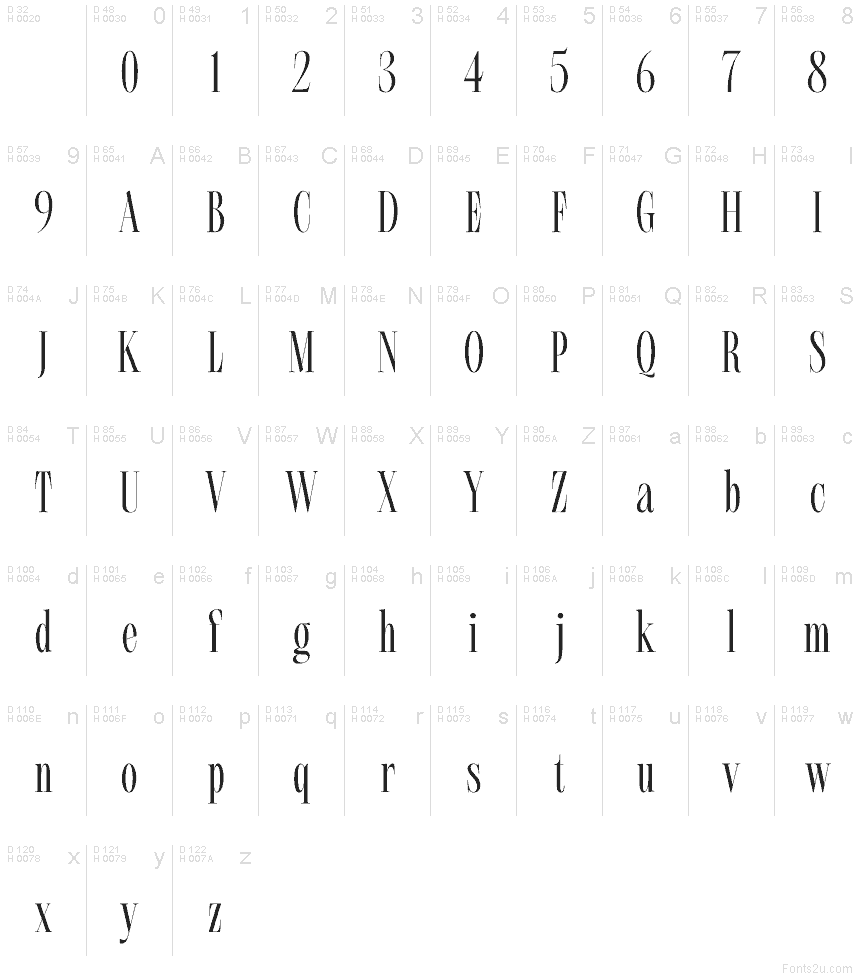
Lunette
Lunette font is a free serif font designed by ReyreyBlue with an elegant and sophisticated style. It has a condensed width, high contrast, and an overall refined look with a balance between classic aesthetic and modern flair. The tight inter-character spacing advances its sophisticated approach through timely visual uniqueness.
Lunette works best in editorial projects such as magazines, newspapers, catalogs, or even book covers. Use it for print or digital formats like advertising printed brochures/flyers/general copywriting text such as articles on social media platforms (i.e., Facebook) tweets; web page design elements titles subtitles call-to-action messages where appropriate.